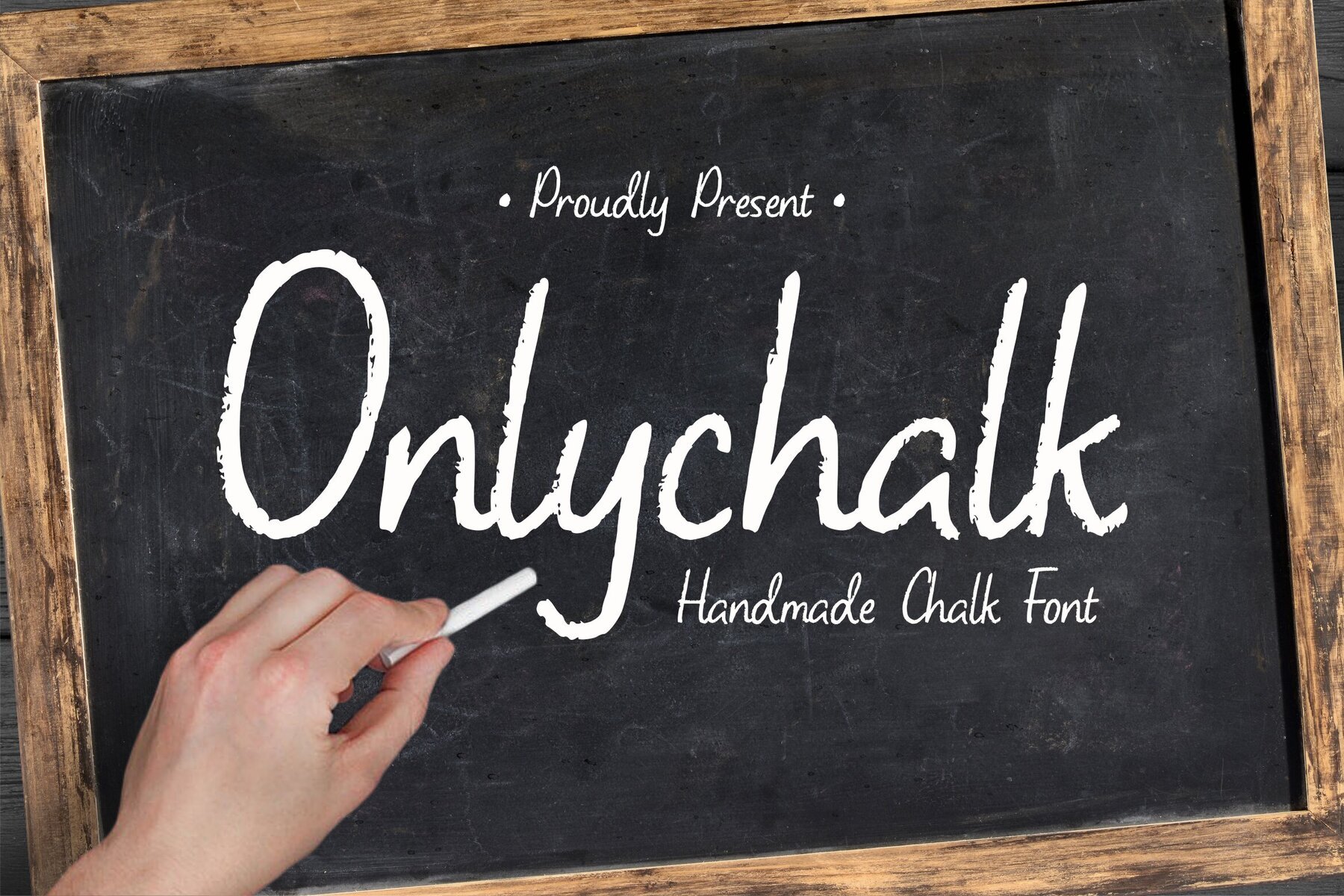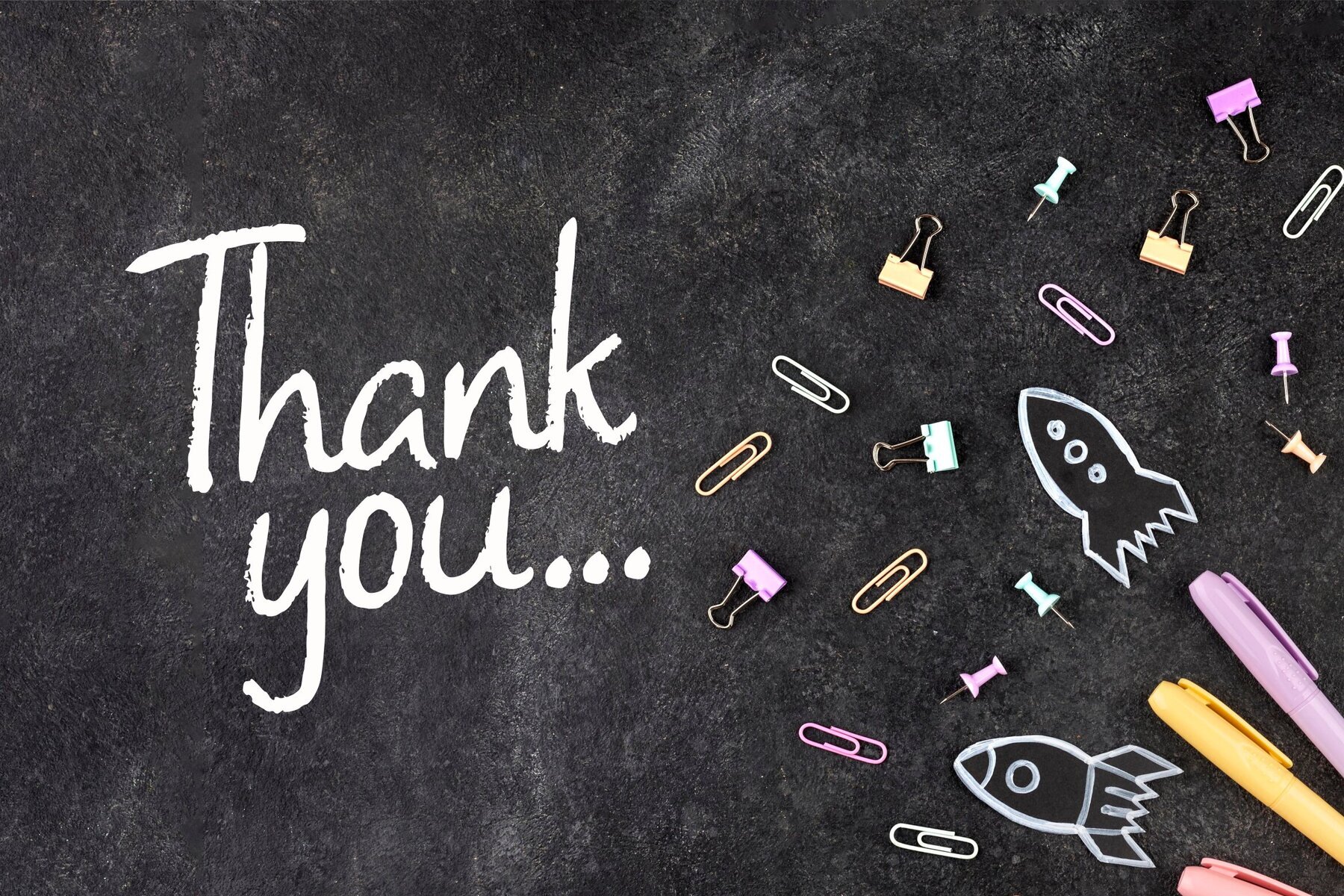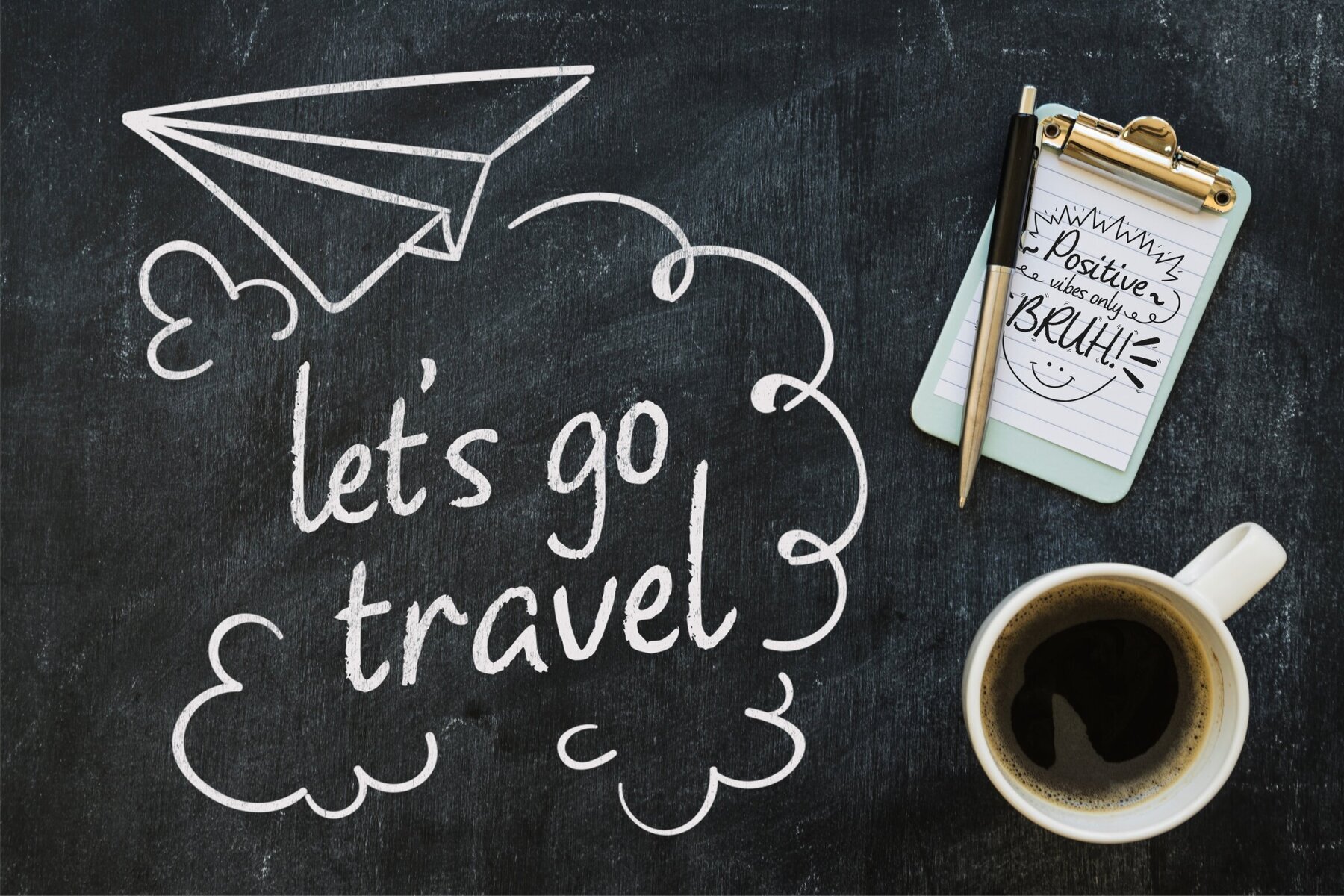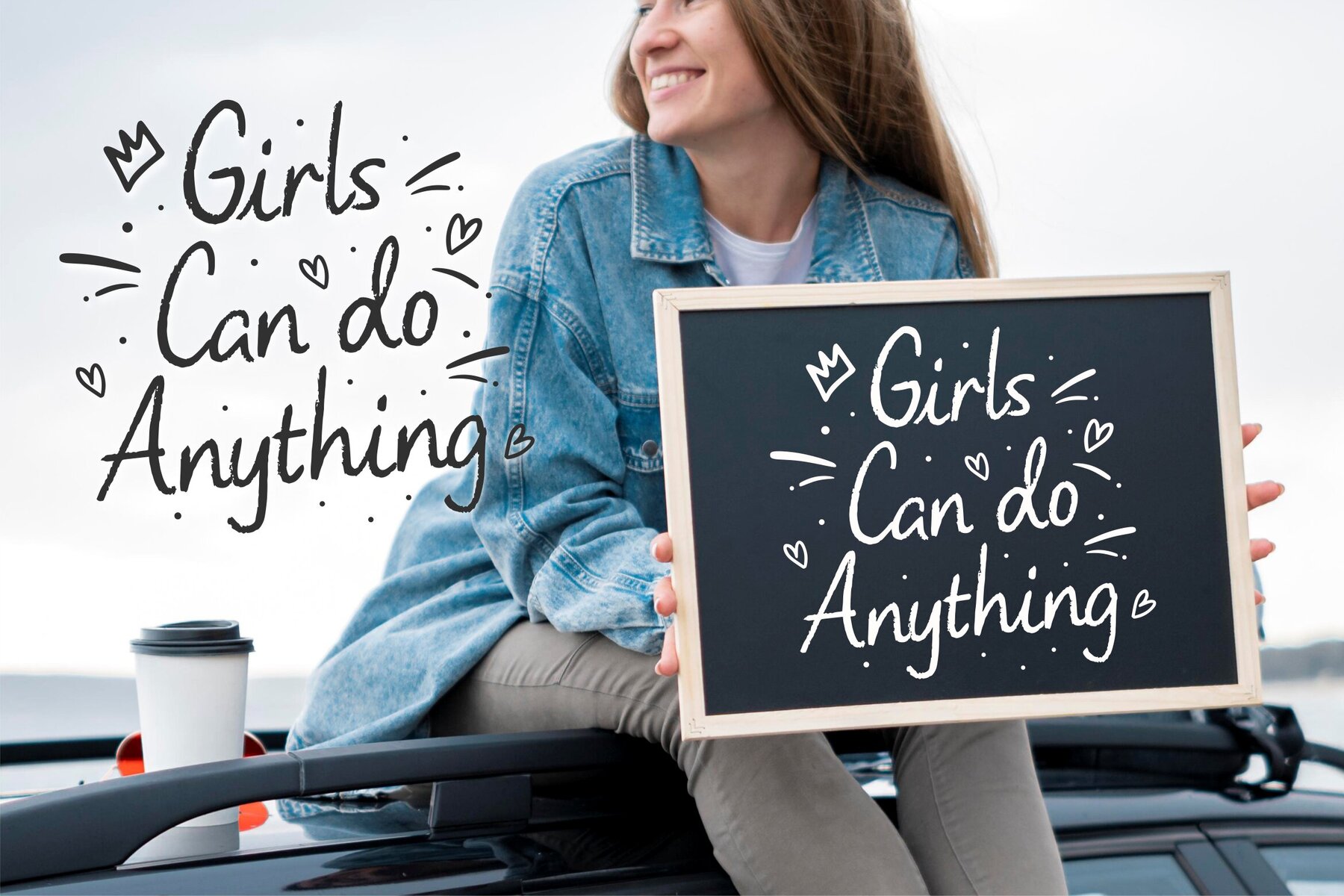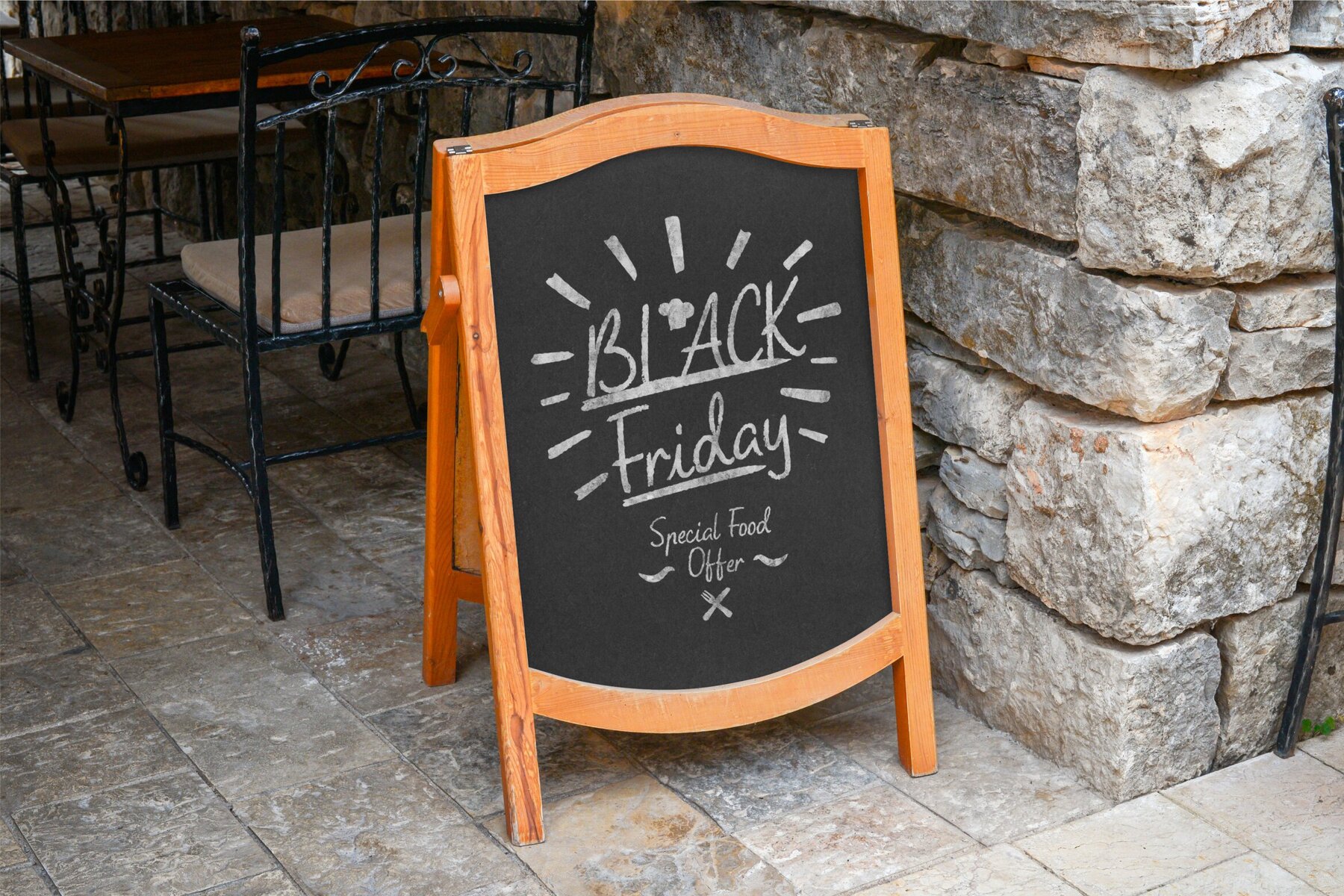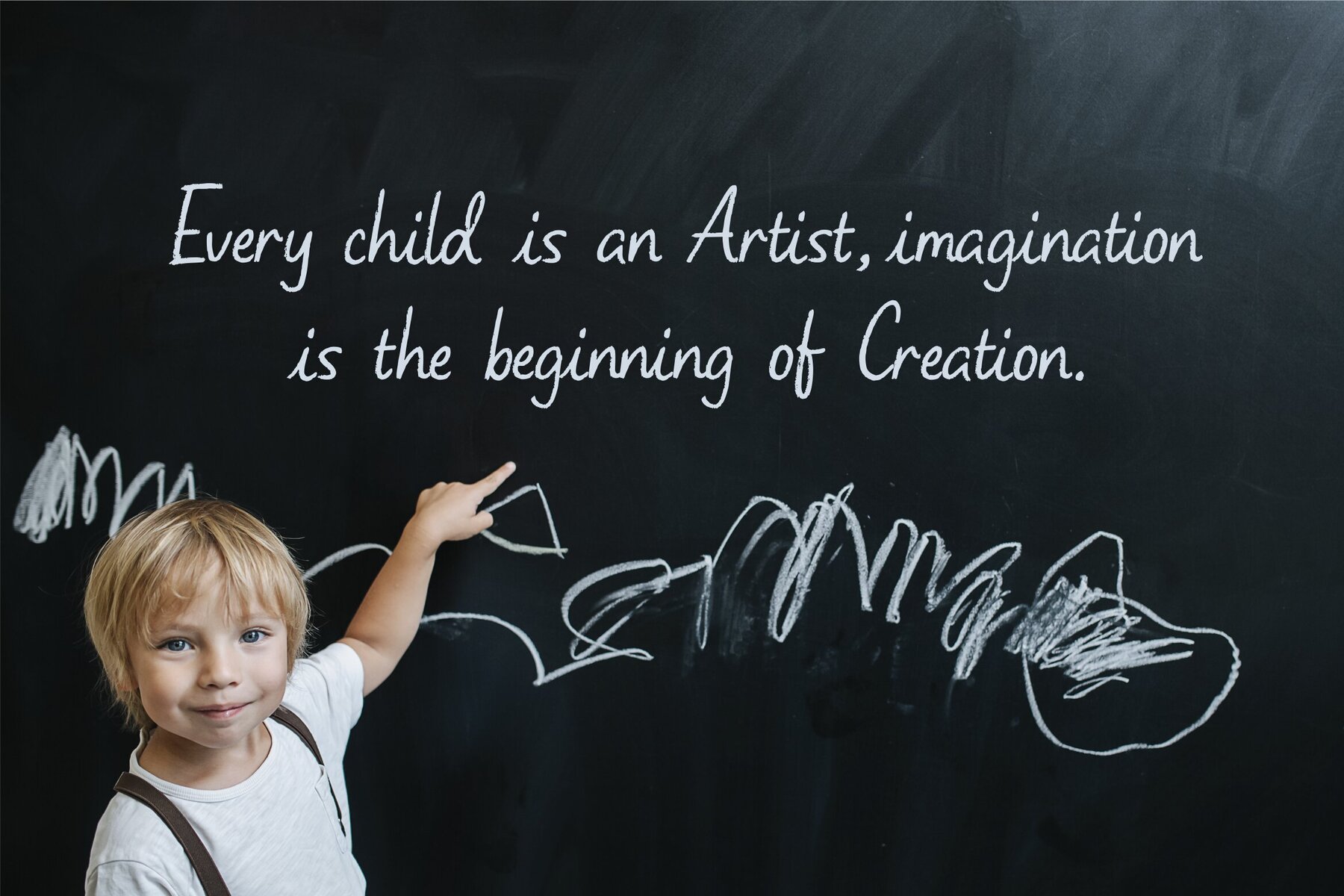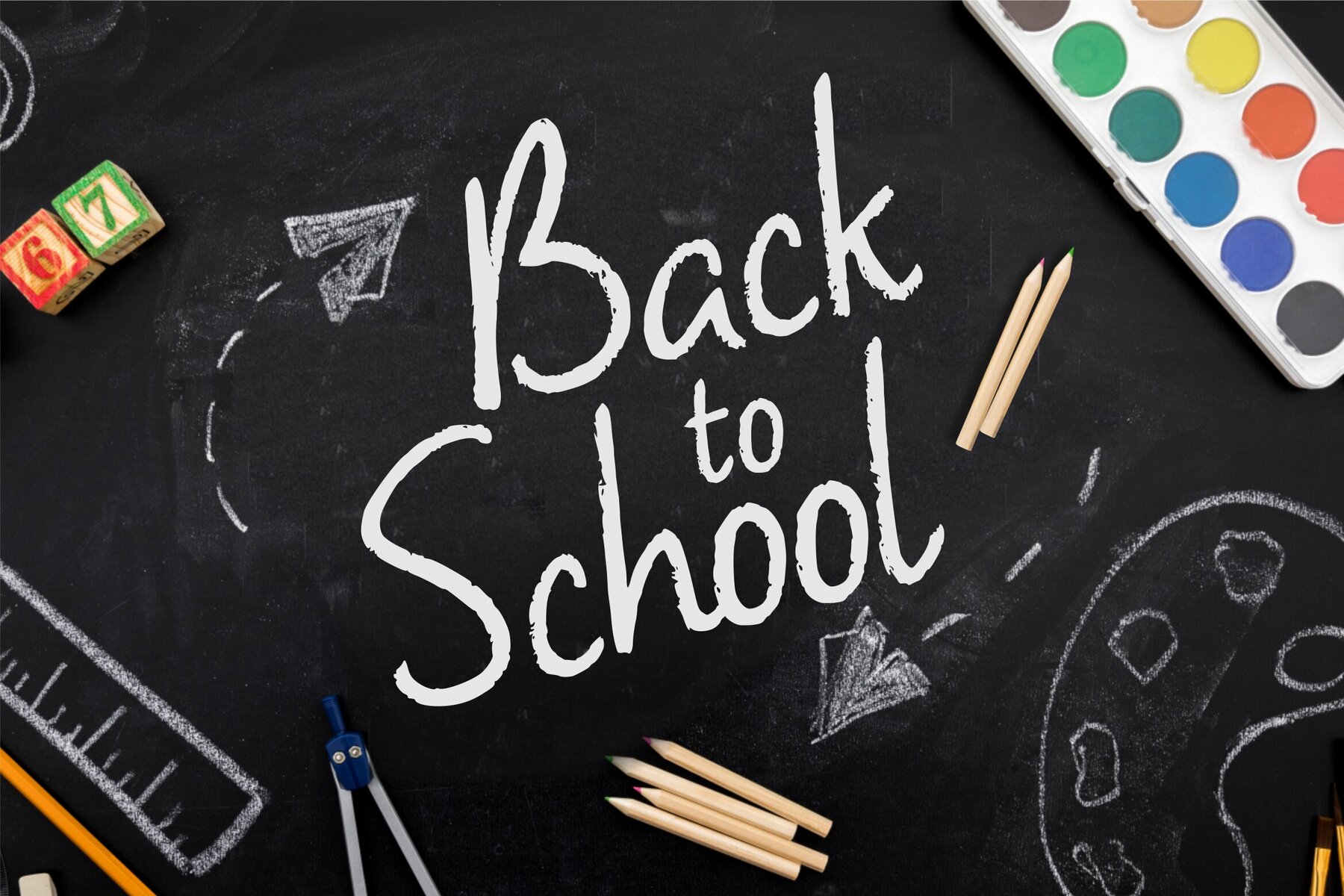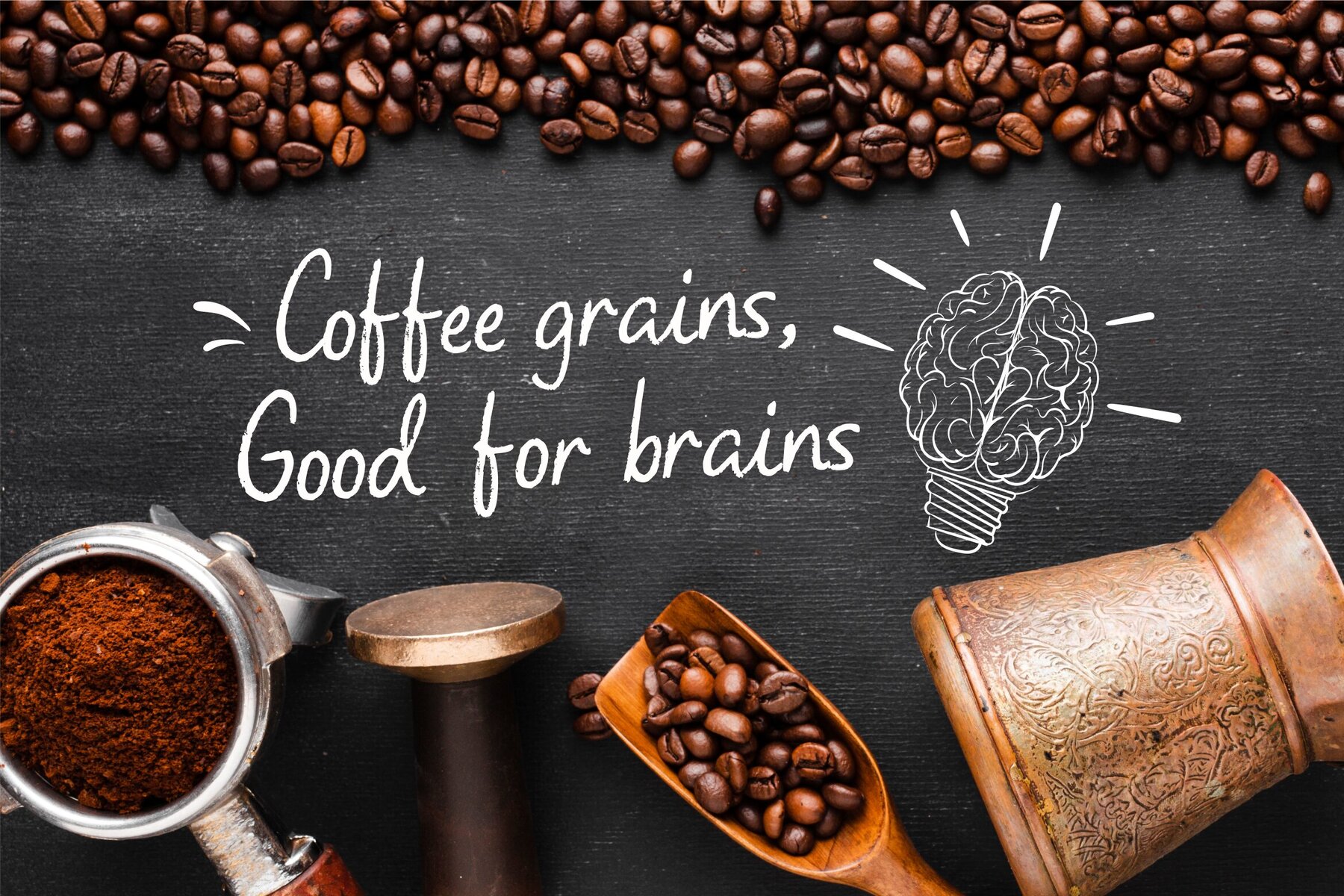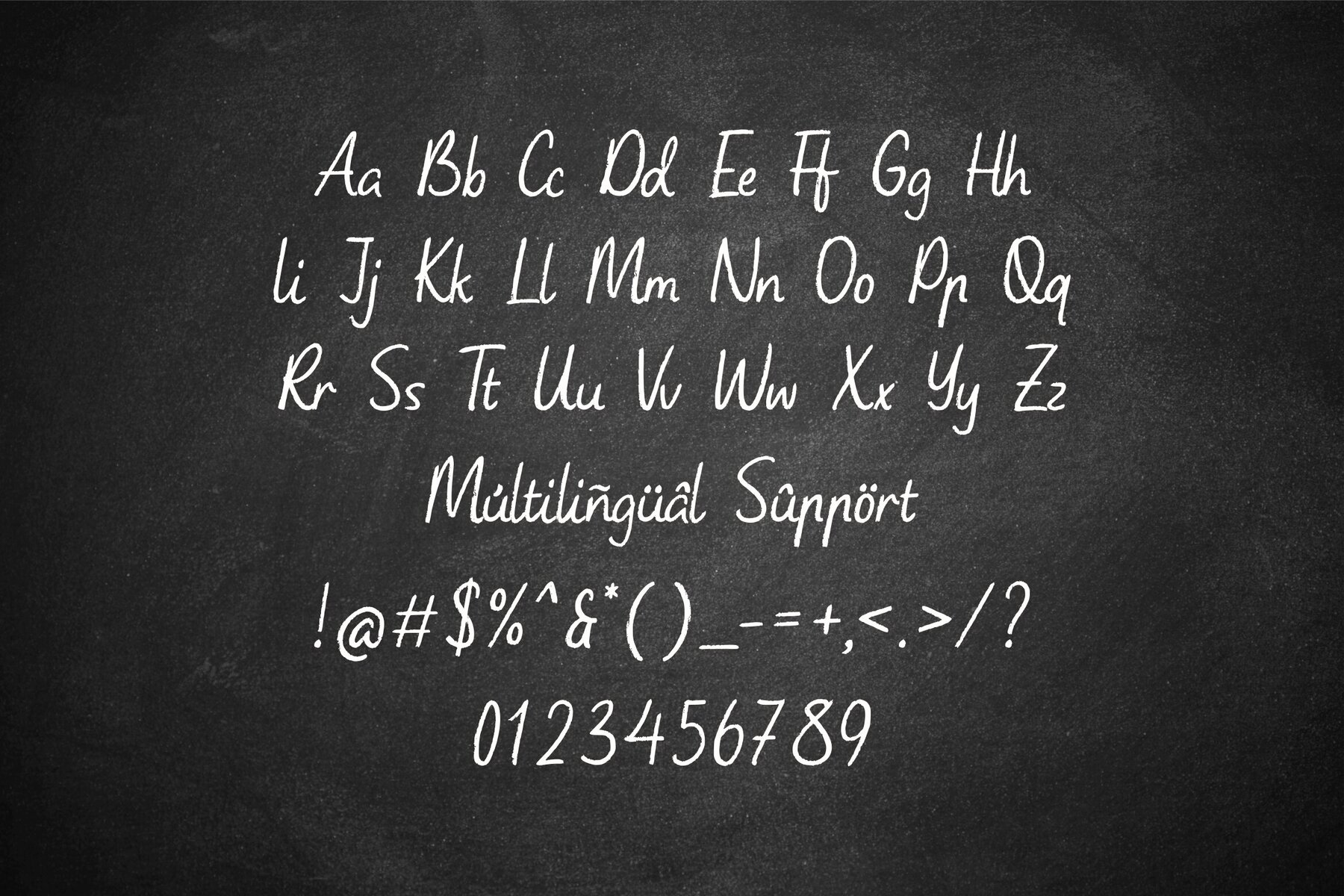
Onlychalk Font
Onlychalk
Designed to captivate, Onlychalk brings timeless charm to a variety of projects. From product packaging and branding ventures to wedding themes and magazine layouts, this font offers versatility and sophistication. Its distinctive chalk-inspired style provides an elevated aesthetic that encourages creative expression in social media graphics and beyond.Onlychalk: Classic Elegance in Every Stroke